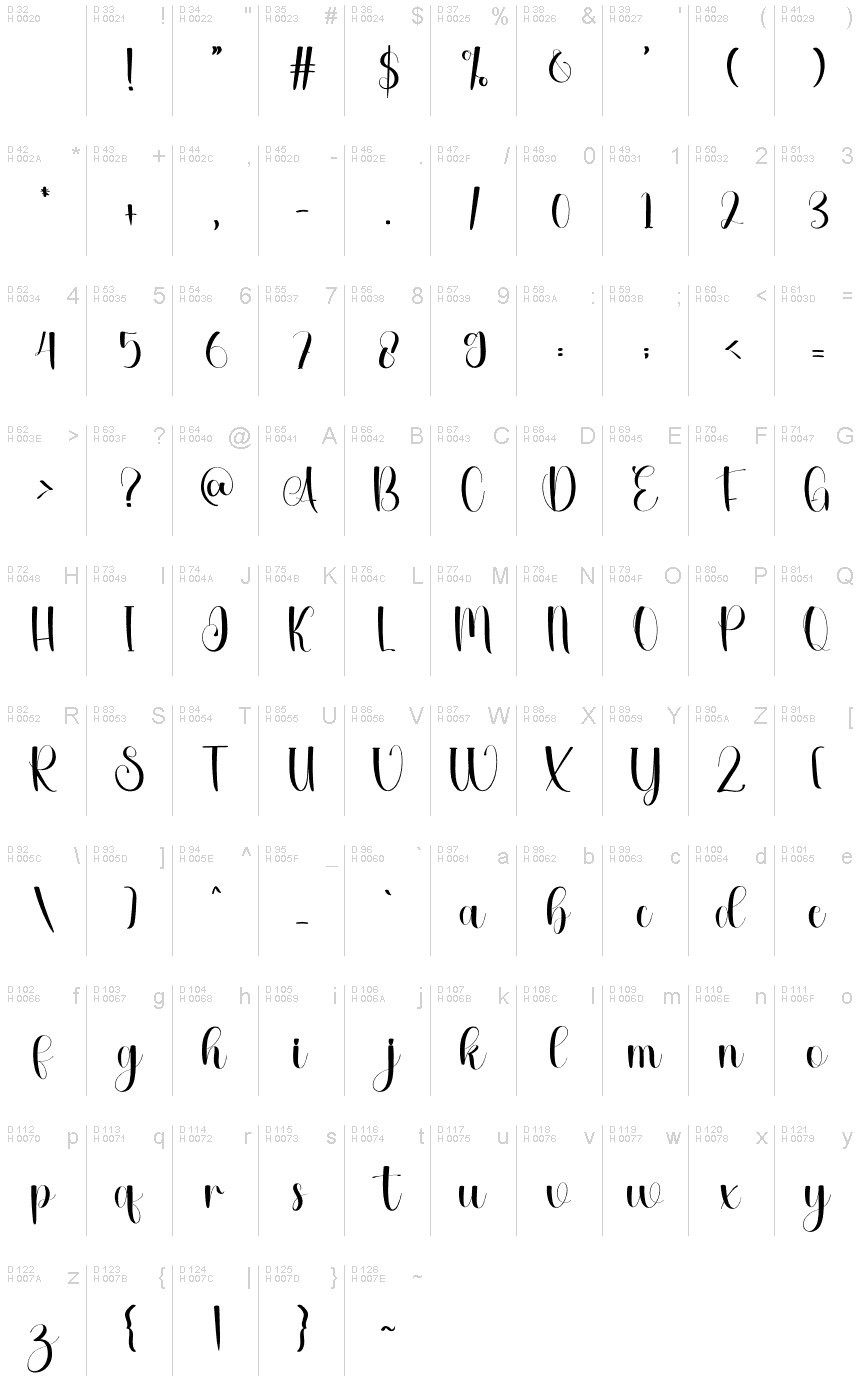
Daubba
Daubba, a creation of Inermedia Studio, is a semi-light calligraphy font that exudes elegance and fluidity. With its sweeping curves and fine lines, Daubba brings a touch of sophistication to any project it graces. This font's aesthetic appeal lies in its harmonious balance between classic calligraphy and modern design sensibilities.
The fluidity of Daubba makes it an ideal choice for invitations, branding, and advertising where a touch of personal flair is desired. Its semi-light weight ensures that it remains legible while providing an airy, unobtrusive presence on the page. Whether used for digital media or print, Daubba's stylish character adds an artistic touch without overwhelming the content.
With its graceful appearance and contemporary twist on traditional calligraphy, Daubba promises to be a versatile asset for designers looking to infuse their work with both charm and readability.